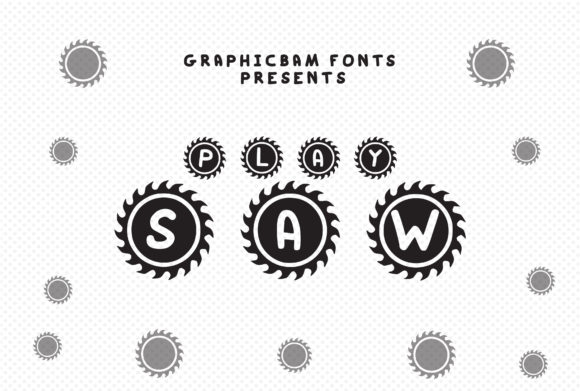
Embrace the whimsical and artistic spirit of Play Saw, a decorative font that dances with creativity and charm! Step into a realm of endless possibilities, where this playful typeface transforms your designs into masterpieces.
Picture your designs adorned with Play Saw's captivating geometric shapes and flowing lines, capturing the hearts of your audience. Each stroke exudes a vibrant energy that invites them to delve deeper into your imaginative world.
With Play Saw as your design companion, you'll find a kaleidoscope of opportunities to showcase your artistry. Craft eye-catching logos that embody the essence of your brand, ignite social media posts with an explosion of creativity, and elevate construction branding with a touch of playful sophistication.
Whether you're a seasoned pro or a budding designer, Play Saw is your ally, ready to unleash your inner artist and guide you towards design greatness. Experience the magic of Play Saw today, and let your imagination take flight!